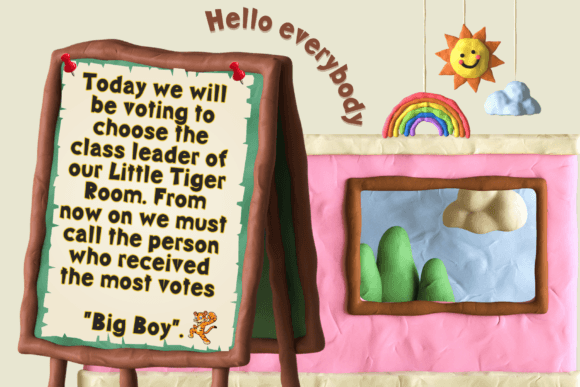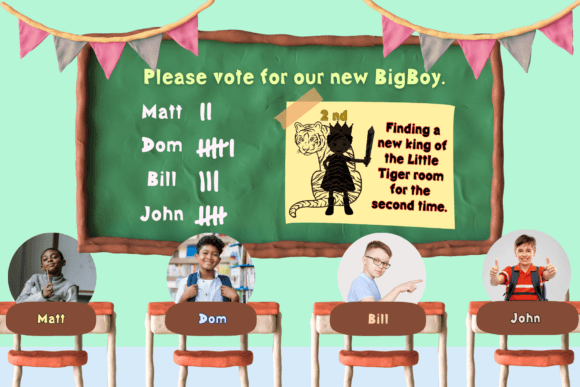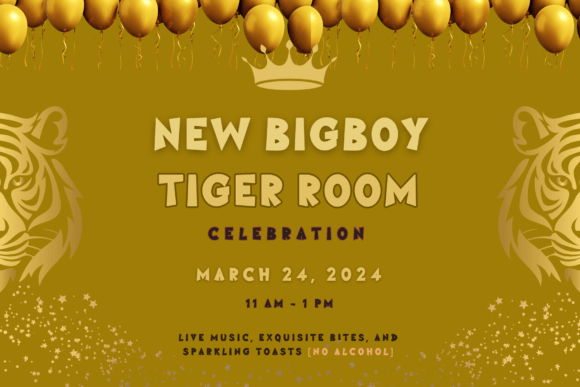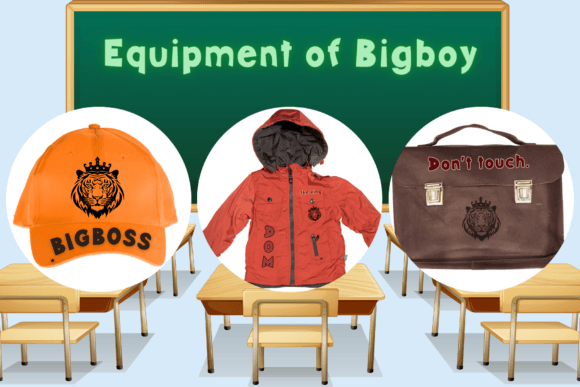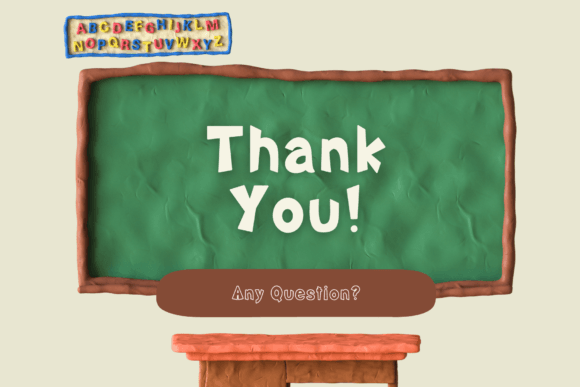
A Bigboy Font: The Cute Cartoonish Style for Creative Works
In the world of typography, fonts play a crucial role in conveying the tone and personality of a brand or design. For designers and crafters looking for a unique and playful font to add a touch of whimsy to their creative works, A Bigboy Font is an excellent choice. Inspired by a chubby boy who seems to be the big boss in school, this font is designed to have a cute cartoonish style that conveys the image of a chubby boy through the letters.
The Inspiration Behind A Bigboy Font
A Bigboy Font is more than just a font – it’s a character. The inspiration behind this font comes from the idea of a chubby boy who exudes confidence and authority, despite his playful and cute appearance. The font’s creator aimed to capture the essence of this character and translate it into a typographic style that’s both fun and engaging.
Design Features of A Bigboy Font
A Bigboy Font boasts a range of design features that make it perfect for creative works in the cartoon style or various cute styles. Some of its notable features include:
- Cute Cartoonish Style: The font’s playful and whimsical design makes it ideal for projects that require a touch of humor and fun.
- Chubby Letterforms: The letters in A Bigboy Font are designed to resemble a chubby boy, with rounded edges and a soft, cuddly appearance.
- Ease of Use: The font is easy to use and can be applied to various design projects, from digital graphics to print materials.
Use Cases for A Bigboy Font
A Bigboy Font is versatile and can be used in a variety of creative projects, including:
- Cartoon-Style Animations: The font’s playful design makes it perfect for cartoon-style animations, comics, and graphic novels.
- Children’s Book Illustrations: A Bigboy Font is an excellent choice for children’s book illustrations, adding a touch of whimsy and fun to the text.
- Branding and Packaging: The font’s unique design makes it suitable for branding and packaging projects that require a playful and eye-catching typographic style.
- Digital Graphics: A Bigboy Font can be used in digital graphics, such as social media graphics, blog posts, and website headers.
Benefits of Using A Bigboy Font
Using A Bigboy Font in your creative projects offers several benefits, including:
- Unique Typography: The font’s distinctive design sets it apart from other fonts, making your project stand out.
- Emotional Connection: The font’s cute and playful design can help create an emotional connection with your audience, making your project more relatable and engaging.
- Time-Saving: A Bigboy Font is easy to use, saving you time and effort in your design process.
A Bigboy Font is a unique and playful typographic style that’s perfect for creative works in the cartoon style or various cute styles. Its cute cartoonish design, chubby letterforms, and ease of use make it an excellent choice for designers and crafters looking to add a touch of whimsy to their projects. With its versatility and range of use cases, A Bigboy Font is sure to become a favorite font in your design collection.